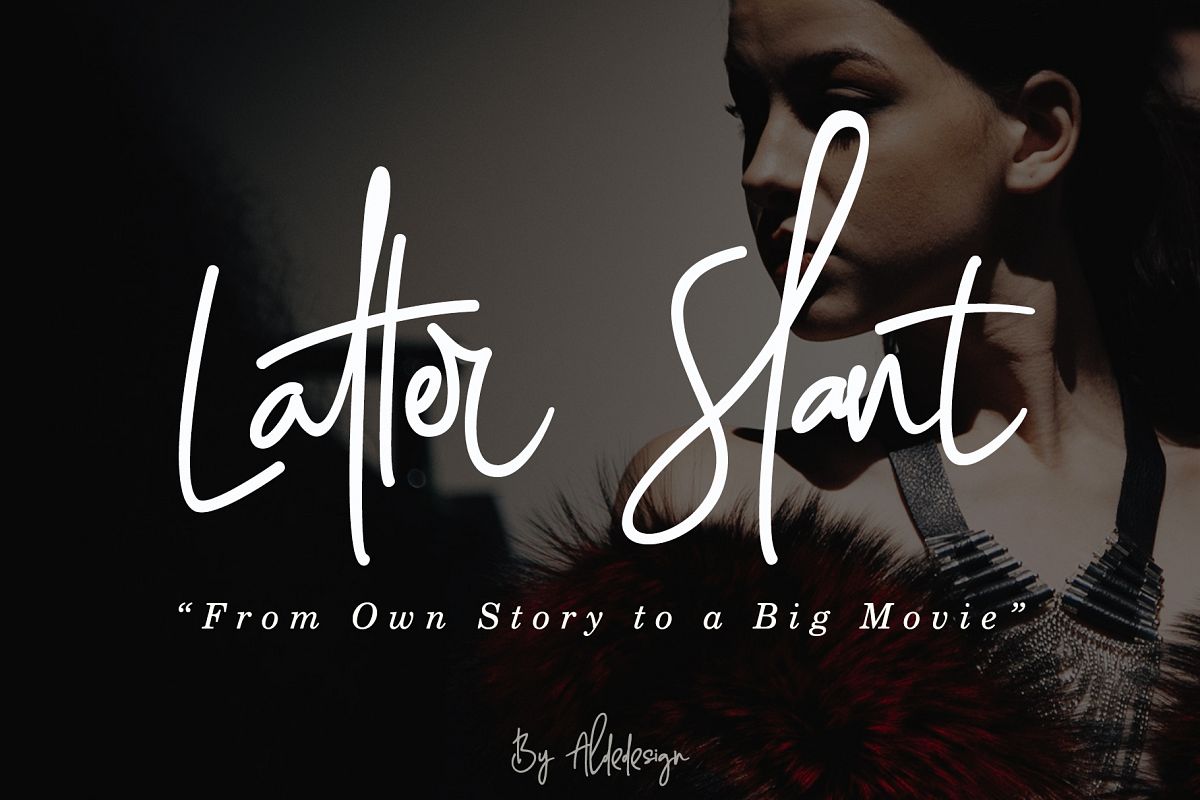
Latter Slant | Signature Font
Latter Slant is a font with simple and classy taste, comes with opentype features such as ligatures. We keep this font looks classy, readable, elegant, stylish, catchy and absolutly easy to use.
Latter Slant is the great choice for watermark on photography, signature or signature logo design, album cover, business card, quotes, and many other design project.
• Stylish handwritten style
• Special Ligatures